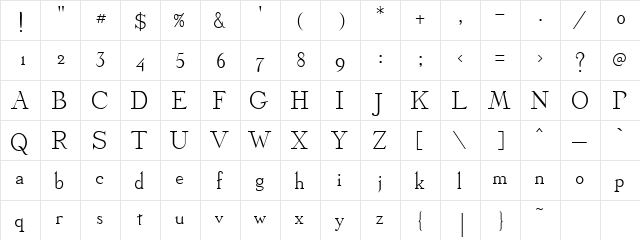
ImideNorm Normal
Design Context for ImideNorm Typeface
ImideNorm is a composed and adaptable typeface that performs quietly and consistently across a wide range of design contexts.